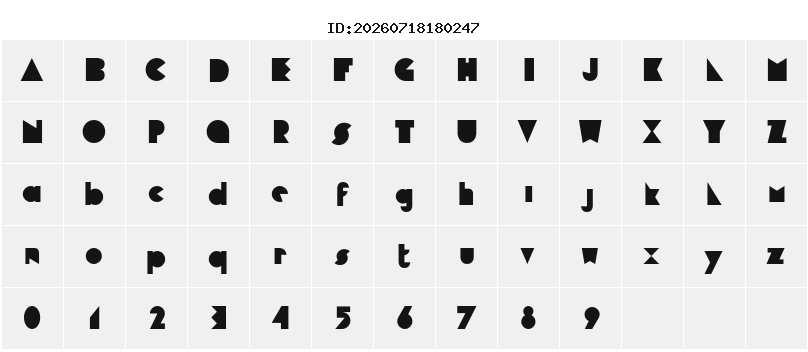
• Font Name: Cubop
• Designer: David Escurriola
About Cubop.otf
Cubop.otf is a modern, elegant sans-serif font designed for ultimate readability and visual harmony. Perfect for branding, headlines, web design, and print materials.